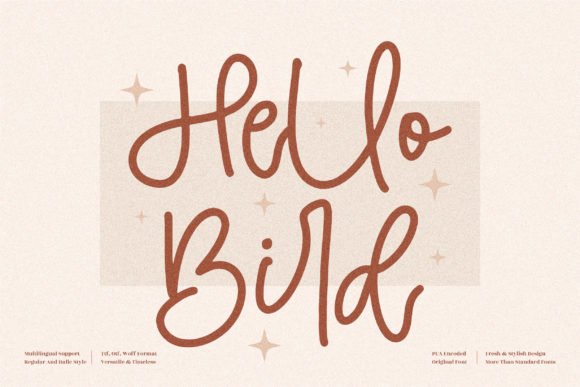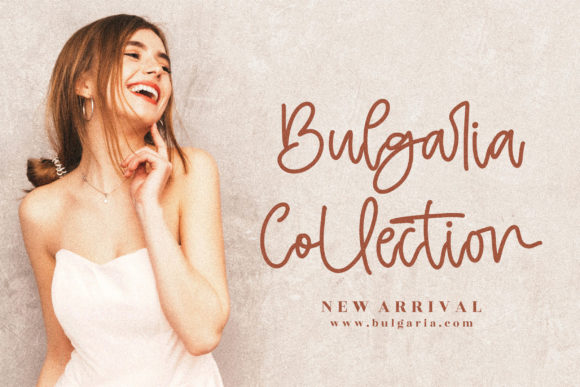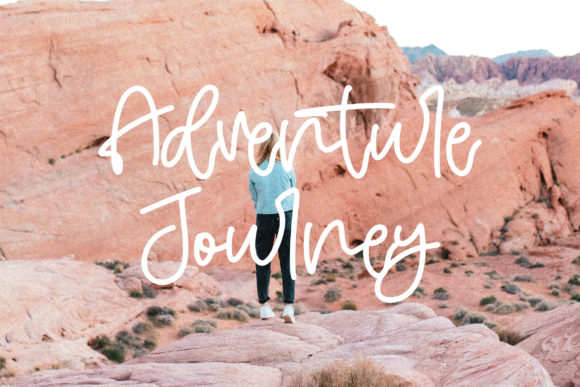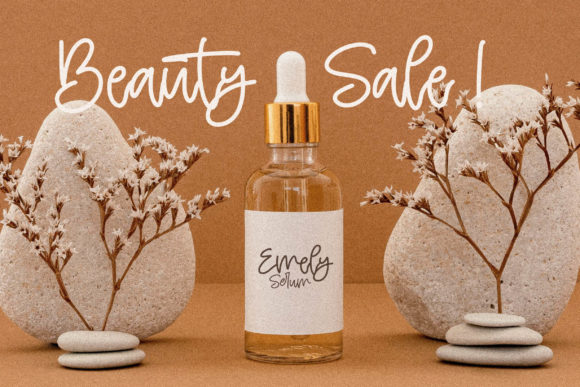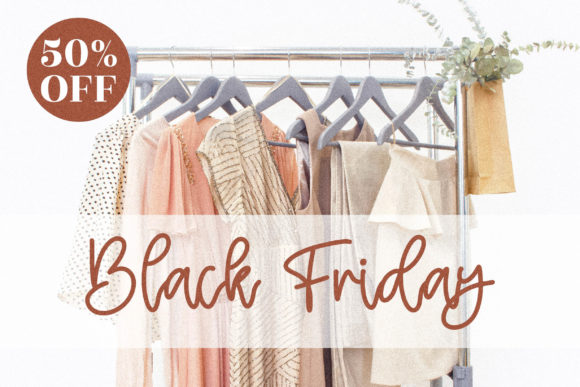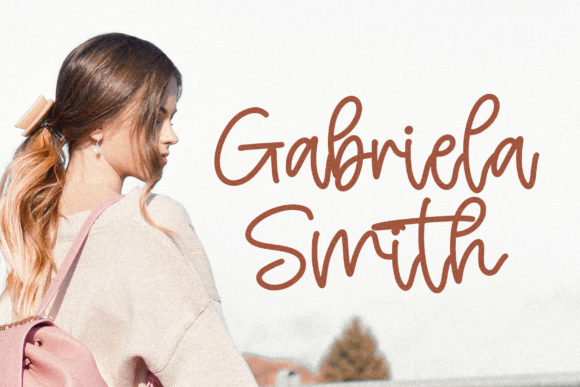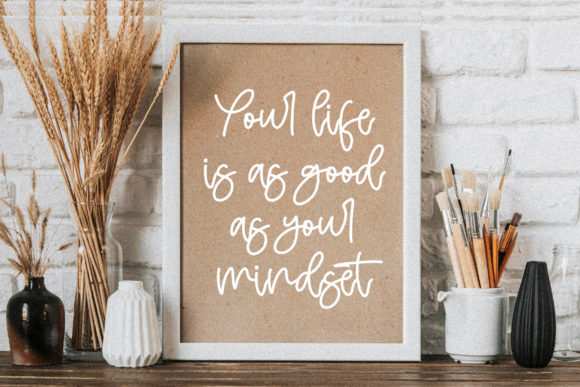
When Creativity Takes Flight
Have you ever been brainstorming for hours, trying to come up with the perfect design concept, only to have it all come together in a flash of inspiration? That’s exactly what happened to me when I stumbled upon the Hello Bird Font. Its whimsical charm and playful characters instantly sparked a creative idea that I just couldn’t wait to bring to life.
As a designer, I’m always on the lookout for fonts that can elevate my work and make it stand out. That’s why I’m excited to share with you the Hello Bird Font, a lovely script font that’s perfect for adding a touch of personality to your designs. With its PUA encoding, you can access all the glyphs and swashes with ease, giving you endless possibilities for creative expression.
Hello Bird Font Key Features
- Unique Characteristics: Hello Bird Font features a unique blend of hand-drawn and digital elements, resulting in a distinctive and playful style that is perfect for children’s books, greeting cards, and other creative projects.
Hello Bird Font Review
I’ve had the chance to work with the Hello Bird Font, and I must say, it’s a mixed bag. On the plus side, the font is super cute and playful, making it perfect for children’s books, educational materials, and any project that needs a touch of whimsy ✨. The font’s quirky nature adds a lot of character to the designs, and it’s easy to customize to fit the tone of your project.
One thing that really works well for Hello Bird Font is its versatility. It comes in a range of weights and styles, from light to bold, making it suitable for both large-scale headings and small-scale body text ✨. The font is also highly legible, even at small sizes, which is a major plus.
Now, for the not-so-good stuff ⚠️. The font’s limitations come in the form of its somewhat limited character set. It’s not the best choice for projects that require a wide range of languages or complex typography. Additionally, the font can feel a bit too playful for some projects, which may not be suitable for more formal or professional designs.
Overall, I’d say Hello Bird Font is a great choice for the right project. If you’re looking for a fun, playful font that’s easy to work with, this might be the perfect fit. Just be aware of its limitations and choose it wisely.
Here are some pros and cons to consider:
- Quirky, playful design ✨
- Easy to customize
- Highly legible
- Available in a range of weights and styles
- Limited character set ⚠️
- May not be suitable for formal or professional designs
The Hello Bird Font is perfect for creating playful and whimsical designs in Canva.
The Hello Bird Font is ideal for creating custom illustrations and graphics in Adobe Photoshop and Illustrator.
The Hello Bird Font is perfect for creating engaging presentations and documents in PowerPoint and Word.
Some tips for getting the most out of the Hello Bird Font include:
1. Using it for titles and headings to add a playful touch.
2. Pairing it with bold fonts to create contrast and visual interest.
3. Using it for illustrations and graphics to add a whimsical feel.
Common use cases for the Hello Bird Font include: